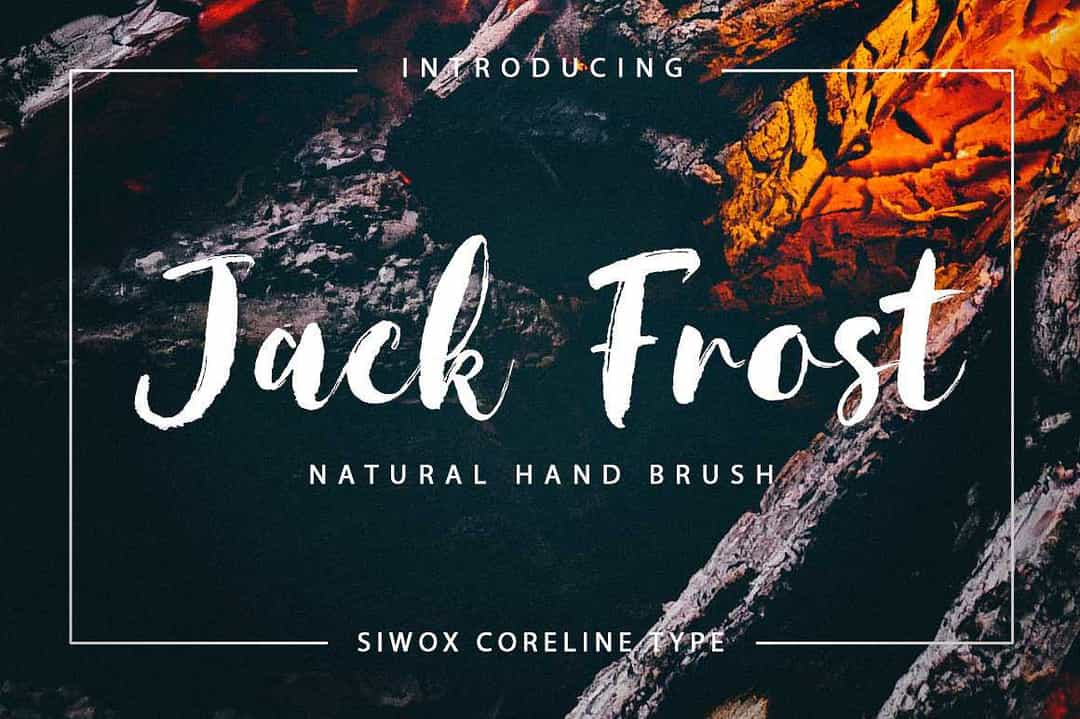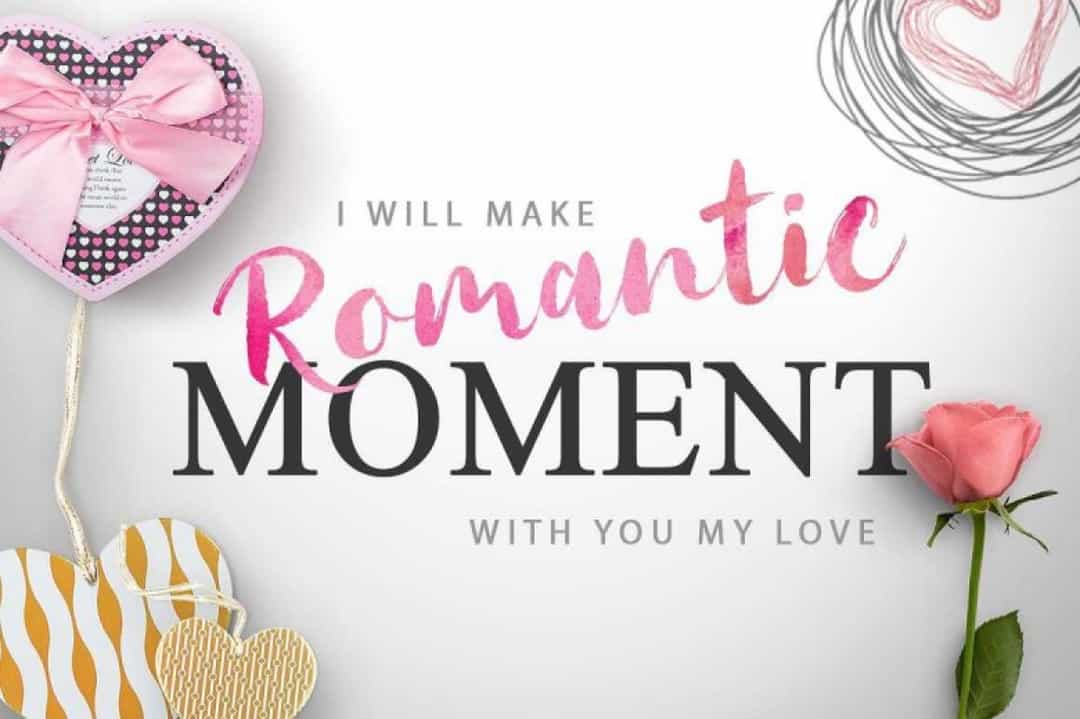
Discover Jack Frost Brush Font, part of the Brush collection—a versatile and unique font perfect for adding a personal touch to your projects. Download it for free and enjoy crafting designs with style, from invitations to social media posts. This font is available exclusively for personal use, giving you the freedom to create without limits. Unlock your creativity with Jack Frost Brush Font today!
JACK Frost Font. The JACK Frost Font is a unique hand-drawn style font with characters that are so incredible. It can be employed in name tags, handwritten quotes, product labeling, merchandise, social media posts and greeting cards among others due to the fact that it is made using brush and water based ink. In addition, it also contains the uppercase letters the punctuation marks as well as the numbers to make its functionality whole.